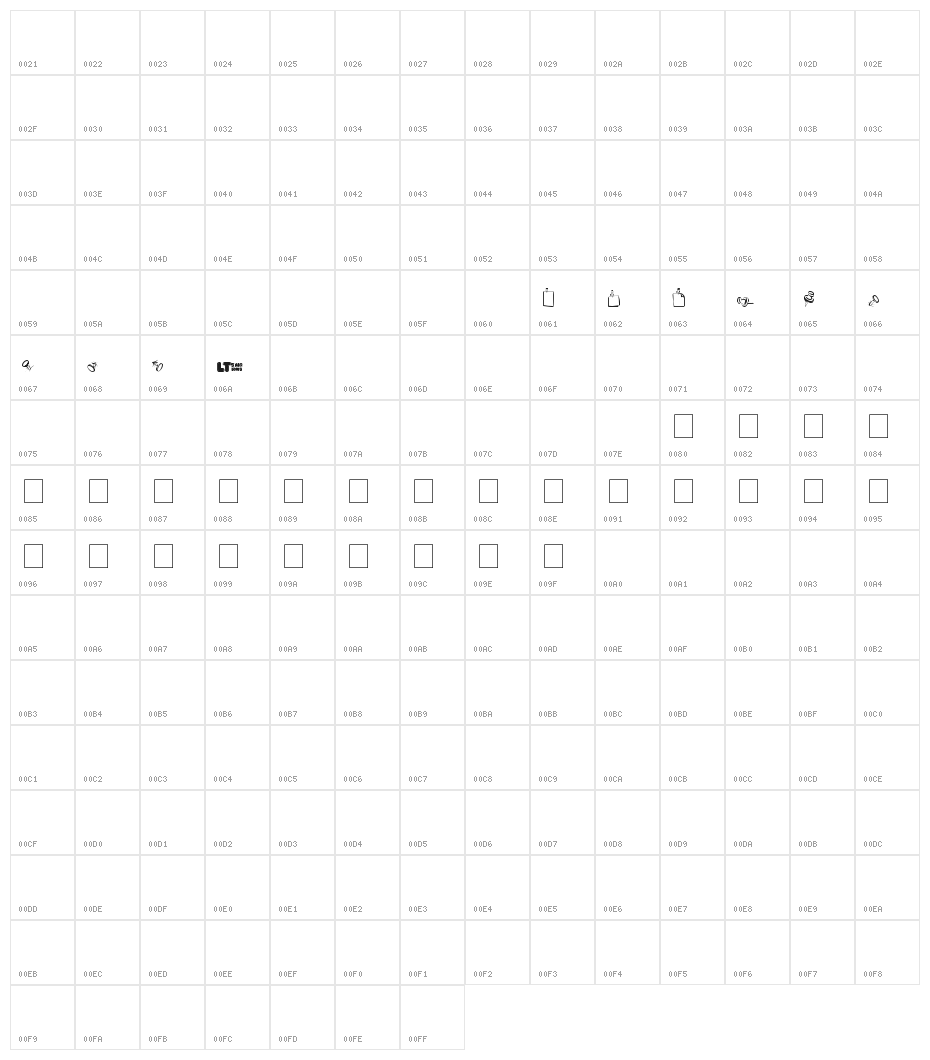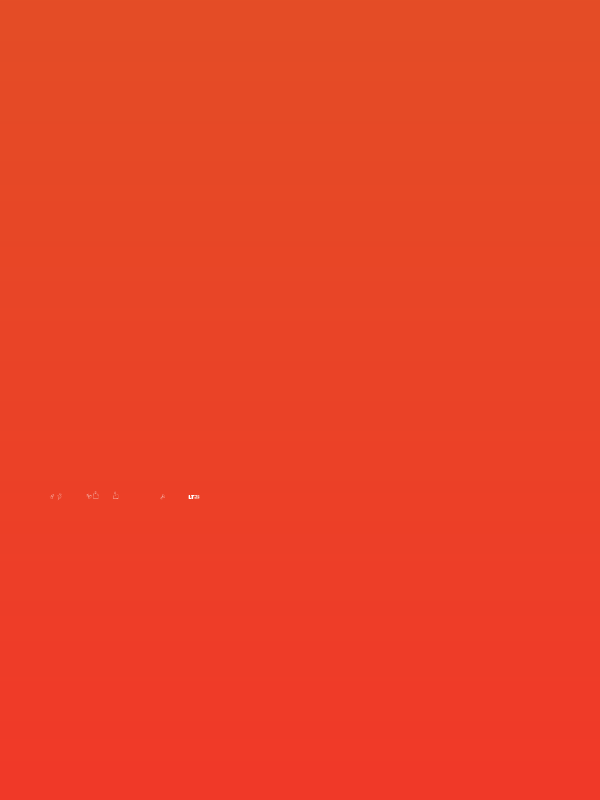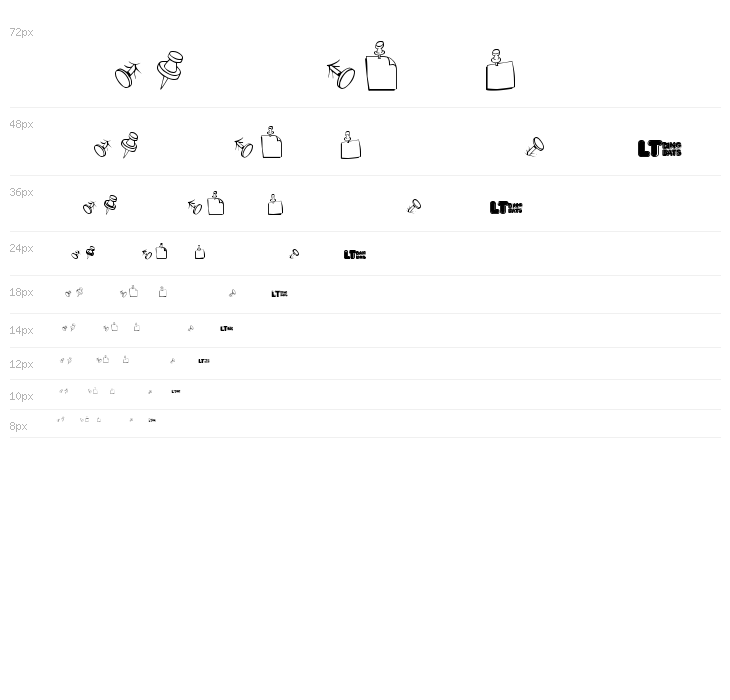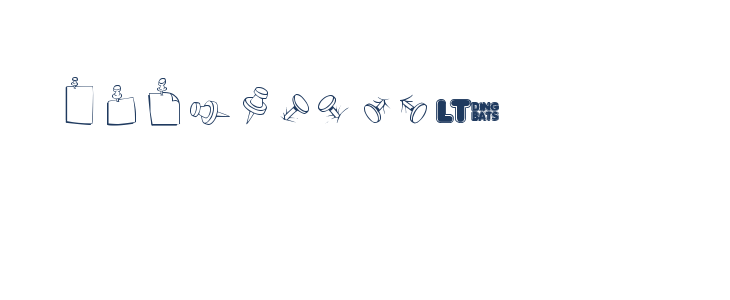
Post It LT Font
Post It LT Description
This is a decorative dingbat font featuring a variety of office-themed icons, including push pins and note papers. Each character is represented by a unique illustration, making it ideal for creative projects that require visual elements rather than traditional text. The style is playful and informal, with a hand-drawn appearance that adds a personal touch to designs. The icons are clear and easily recognizable, suitable for use in both digital and print media.
| Use Case | Logos, Decorative elements, Educational materials |
| Proposed Projects | Ideal for designing office-related graphics, educational materials, or creative presentations where visual elements are needed to convey information. |